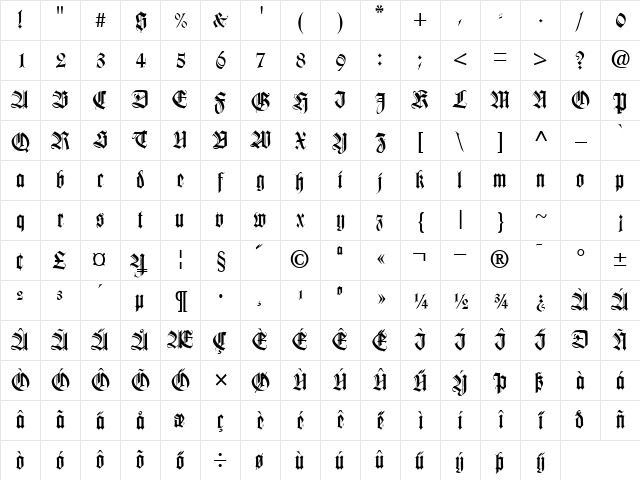
TudorSSK Bold
TudorSSK Family
Design Context for TudorSSK
TudorSSK is a composed and adaptable typeface that performs quietly and consistently across a wide range of design contexts. Its bold stroke weight gives it real presence on the page.